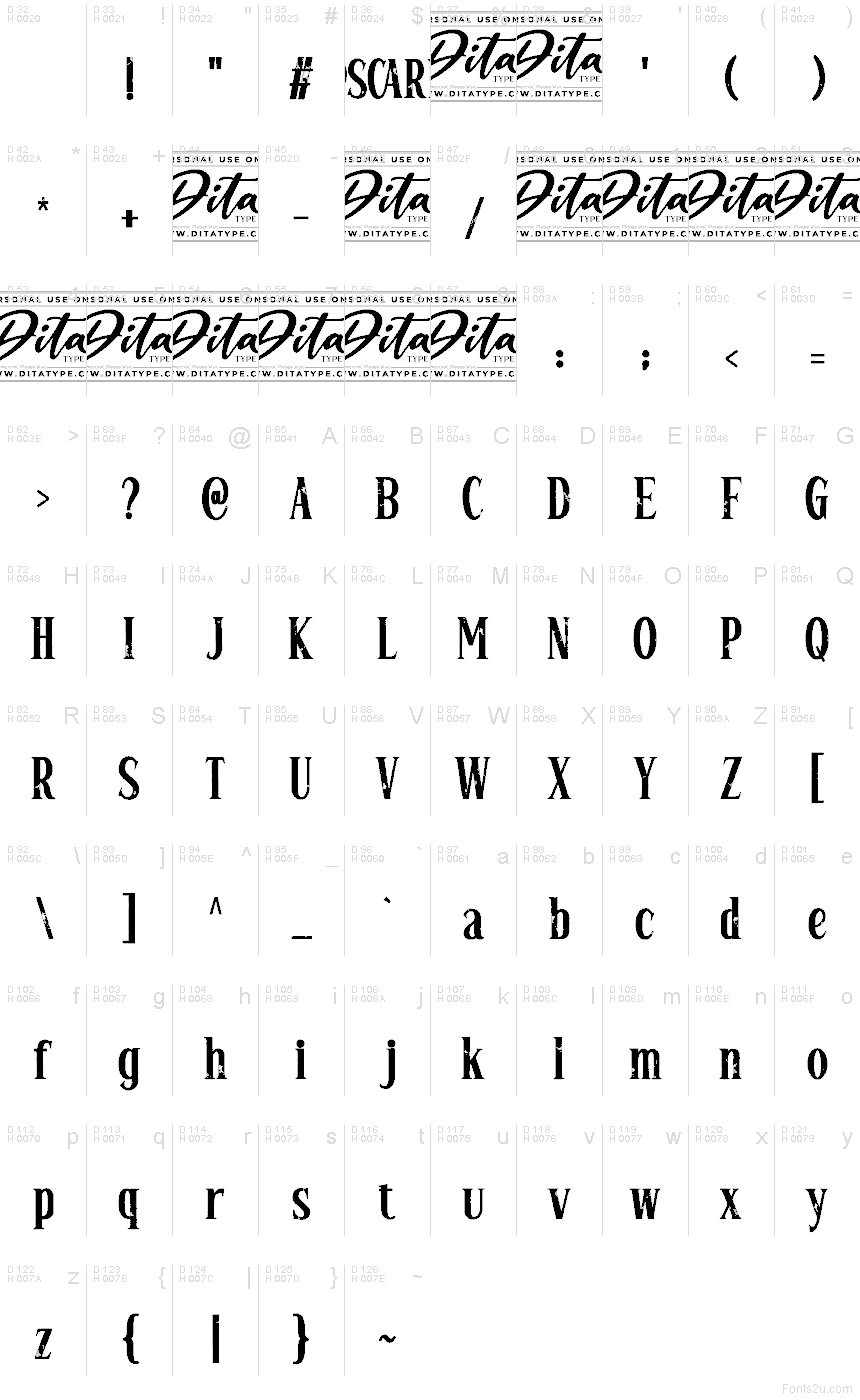
Loscarlo Personal Use
Loscarlo font by Ditatype is a free display font featuring an eroded style on condensed serif letters. Its vintage appearance projects an aged and historical feel often seen on aged books, newspaper clippings, or old shop signs.
Use this font in items such as posters, menus, labels, T-shirt designs, tags, logos, packaging boxes of premium products like watches/perfume/jewelry.